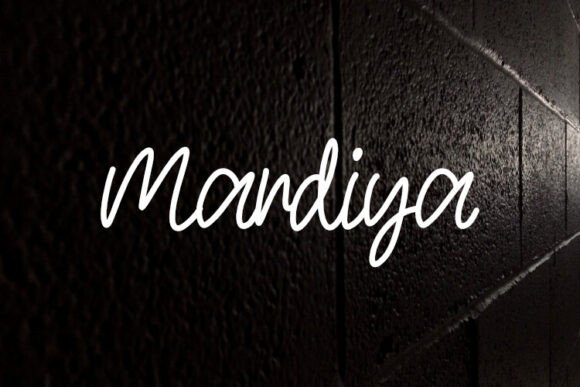
Mardiya Font: Unleash Your Creative Potential
In the world of design, fonts play a crucial role in bringing ideas to life. A well-crafted font can elevate your designs, making them stand out in a crowded market. Introducing “Mardiya,” a versatile font designed to breathe life into your apparel designs. Whether you’re conjuring new styles for garments, t-shirts, or a myriad of other products, “Mardiya” is your creative companion.
Key Features of Mardiya Font
- Versatility: Mardiya font is designed to be versatile, making it perfect for various design projects, from apparel to signage.
- Unique Typography: Mardiya’s unique typography is designed to enhance your creations, making them stand out in any clutter.
Benefits of Using Mardiya Font in Your Designs
Using Mardiya font in your designs offers numerous benefits. Its unique typography and versatility make it an excellent choice for designers looking to create stunning apparel designs. Here are some benefits of using Mardiya font:
- Enhanced Creativity: Mardiya font provides a fresh perspective on typography, allowing designers to experiment with new styles and ideas.
- Professional Look: Mardiya font gives designs a professional look, making them perfect for businesses and individuals looking to establish a strong brand identity.
Design Tips: How to Make the Most of Mardiya Font
To make the most of Mardiya font, here are some design tips to keep in mind:
- Experiment with Different Sizes: Mardiya font looks great in various sizes, from small text to large headlines.
- Play with Colors: The font’s unique typography looks stunning in different colors, so don’t be afraid to experiment.
- Pair with Other Fonts: Mardiya font pairs well with other fonts, making it easy to create visually appealing designs.
Uses of Mardiya Font
Mardiya font is designed for various design projects, including:
- Apparel Design: The font is perfect for designing t-shirts, hoodies, and other apparel.
- Signage: Mardiya font is great for creating eye-catching signs and posters.
- Branding: The font’s unique typography makes it an excellent choice for businesses looking to establish a strong brand identity.